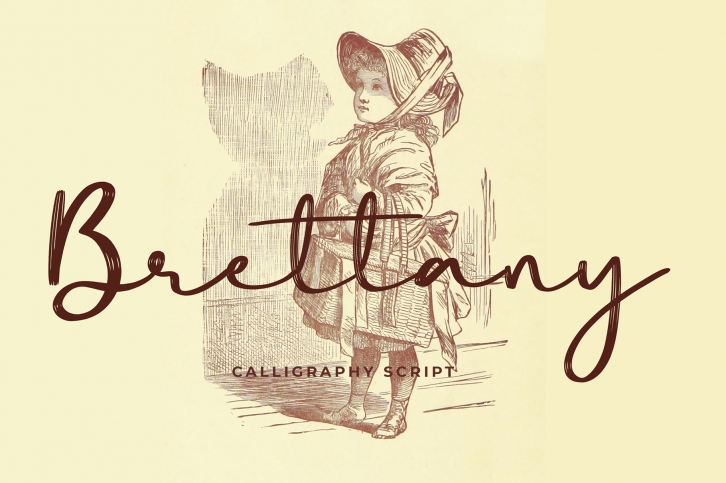
Brettany Calligraphy Brush Script is a great font that was designed by Formatika Studio. Imagine the amount of combinations you can create using this font! The archive is 10.59 MB and it was released on February 12, 2020. Brettany Calligraphy Brush Script looks beautiful on wedding invitations, greeting cards, logos, posters, labels, t-shirt designs, logos, business cards and is perfect for use in ink or watercolor works, fashion, magazines, packaging and food menus, children's books and more!